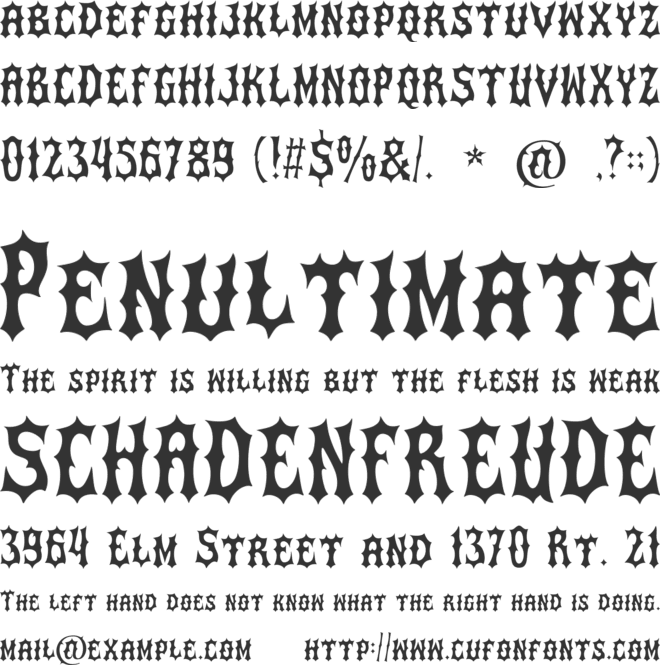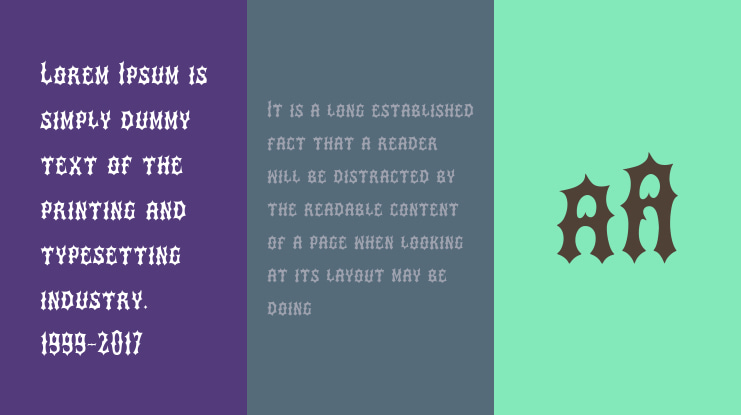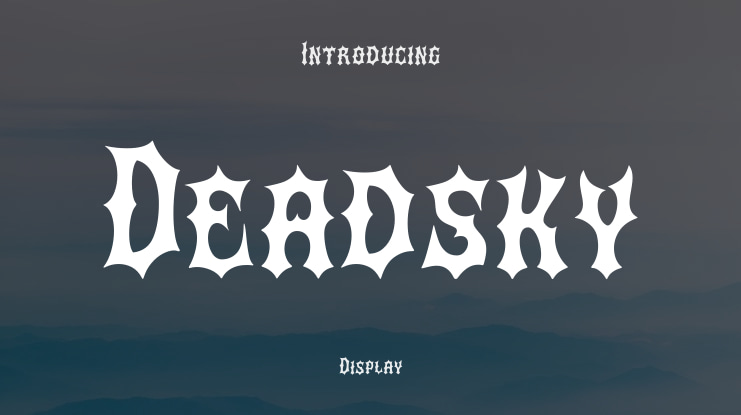
Deadsky Font
Dead Sky Darkletter Typeface — Where Bold Punk Meets Tribal Aesthetic
Step into the world of edgy typography with Dead Sky, a powerful darkletter typeface designed to stand out. Inspired by punk culture and tribal motifs, this font exudes a rebellious spirit with its sharp thorn-like elements and dynamic swashes. Whether you're designing for music, fashion, branding, or art, Dead Sky delivers a bold, aggressive style that commands attention.